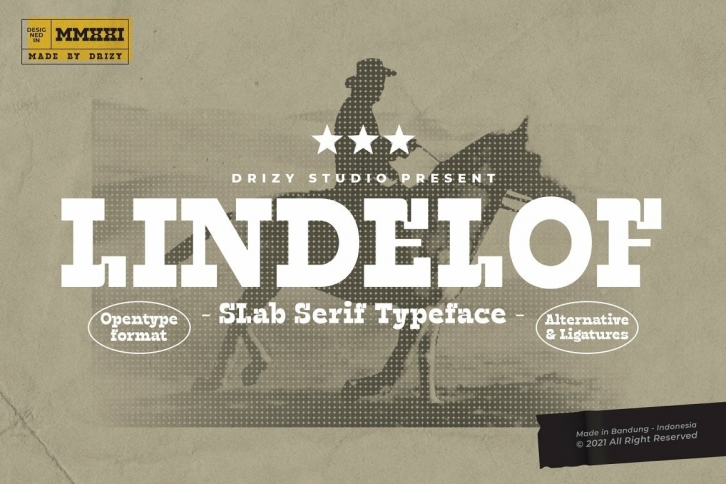
Lindelof is a great font that was designed by drizy studio. Imagine the amount of combinations you can create using this font! The archive is 18.19 MB and it was released on November 29, 2021. Lindelof looks beautiful on wedding invitations, greeting cards, logos, posters, labels, t-shirt designs, logos, business cards and is perfect for use in ink or watercolor works, fashion, magazines, packaging and food menus, children's books and more!